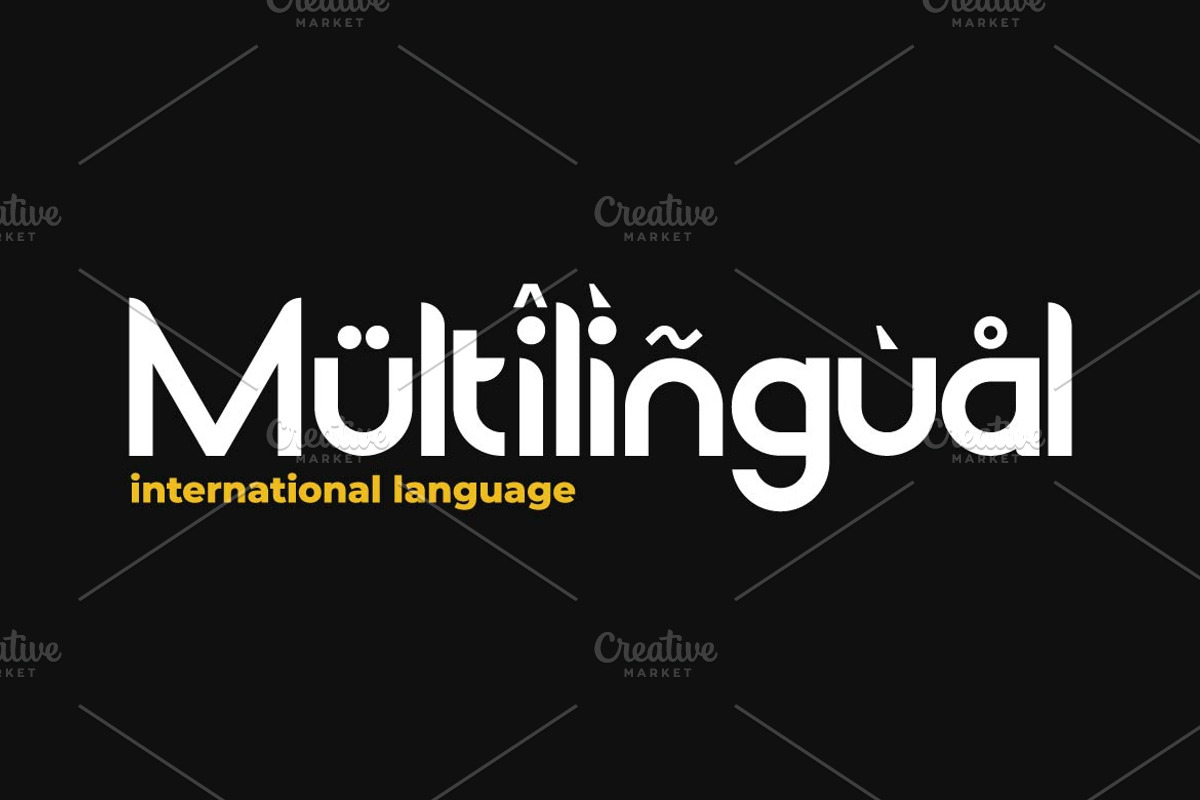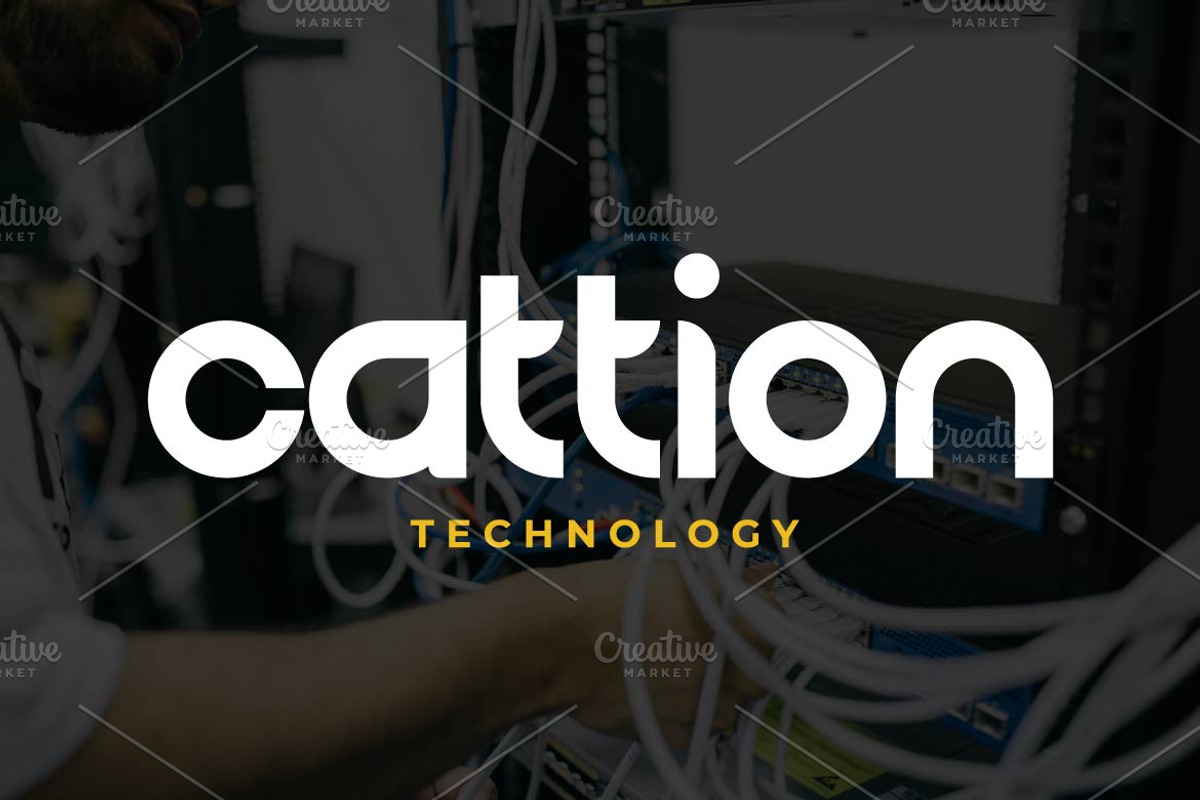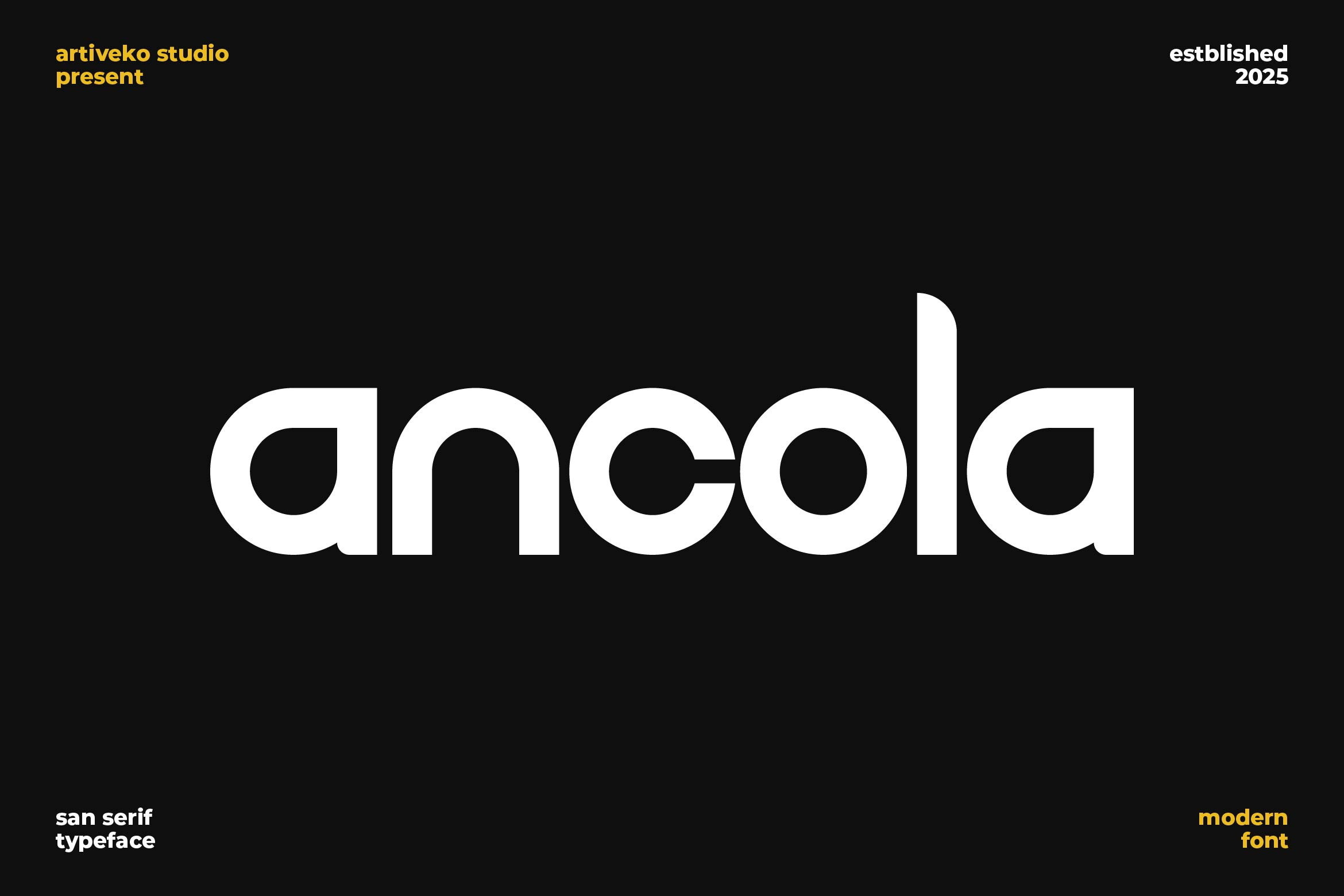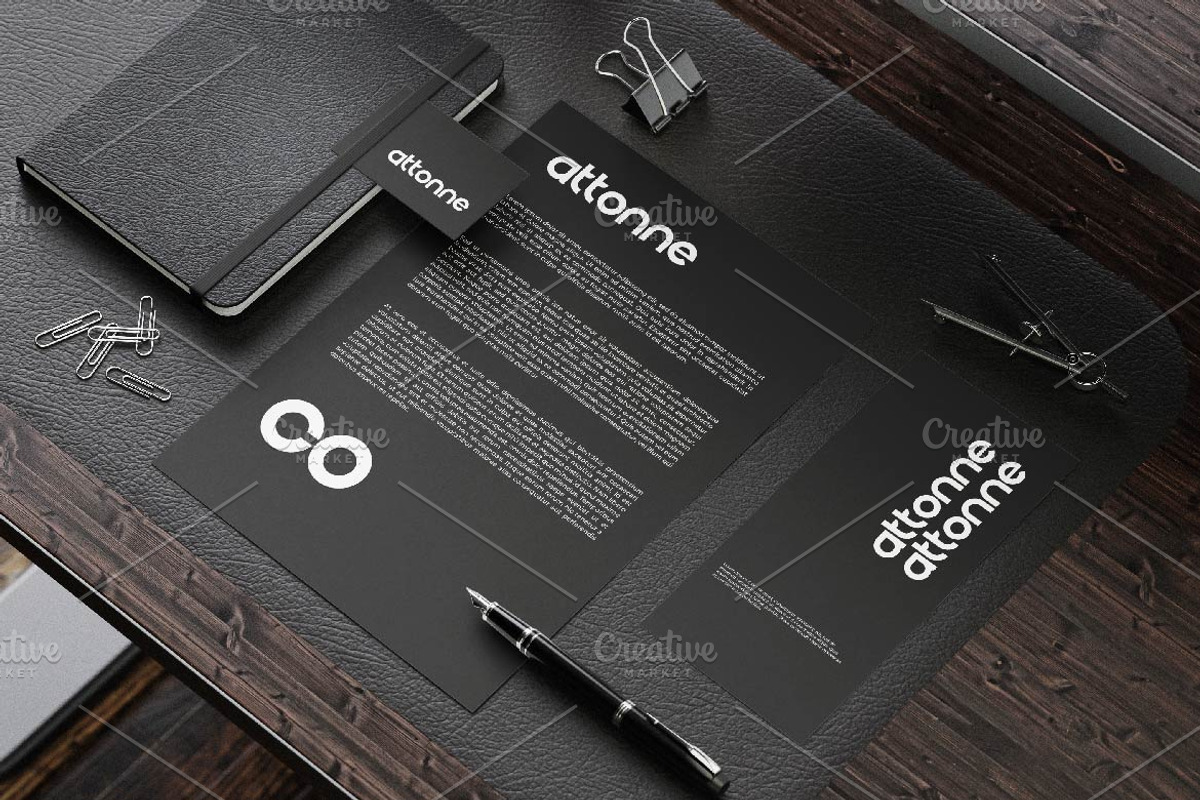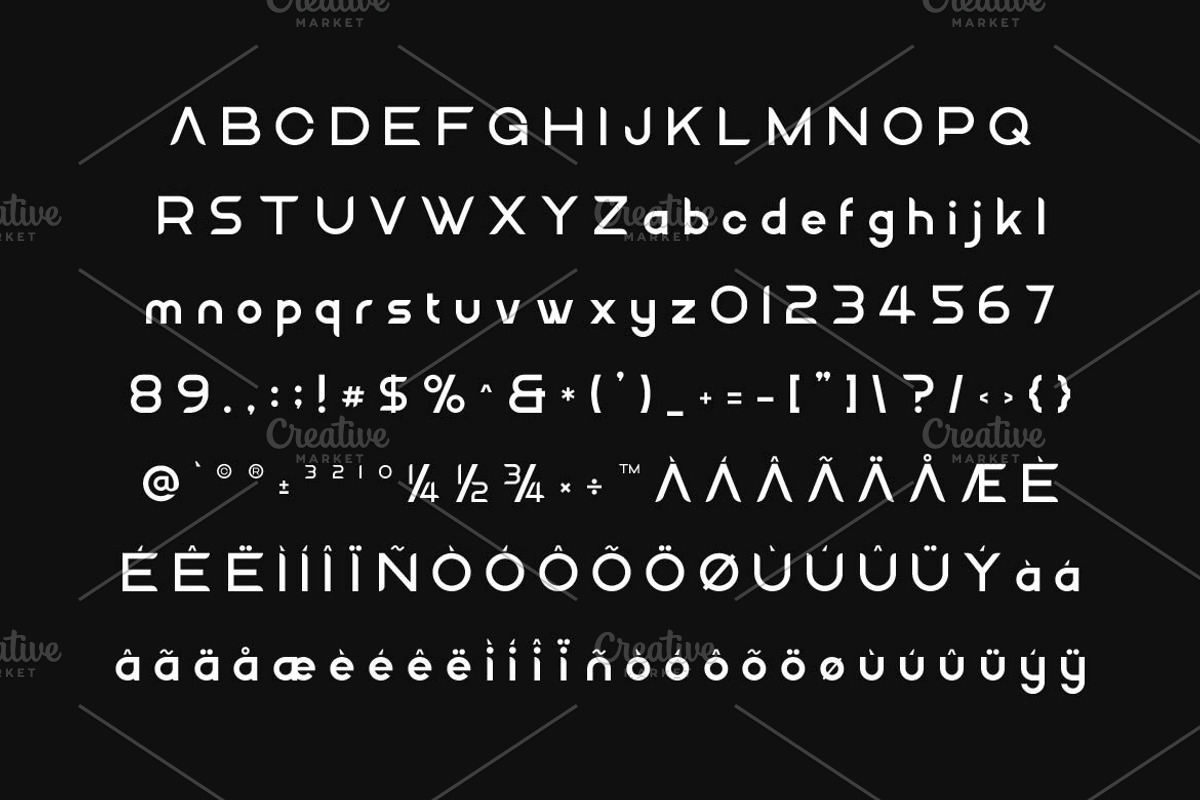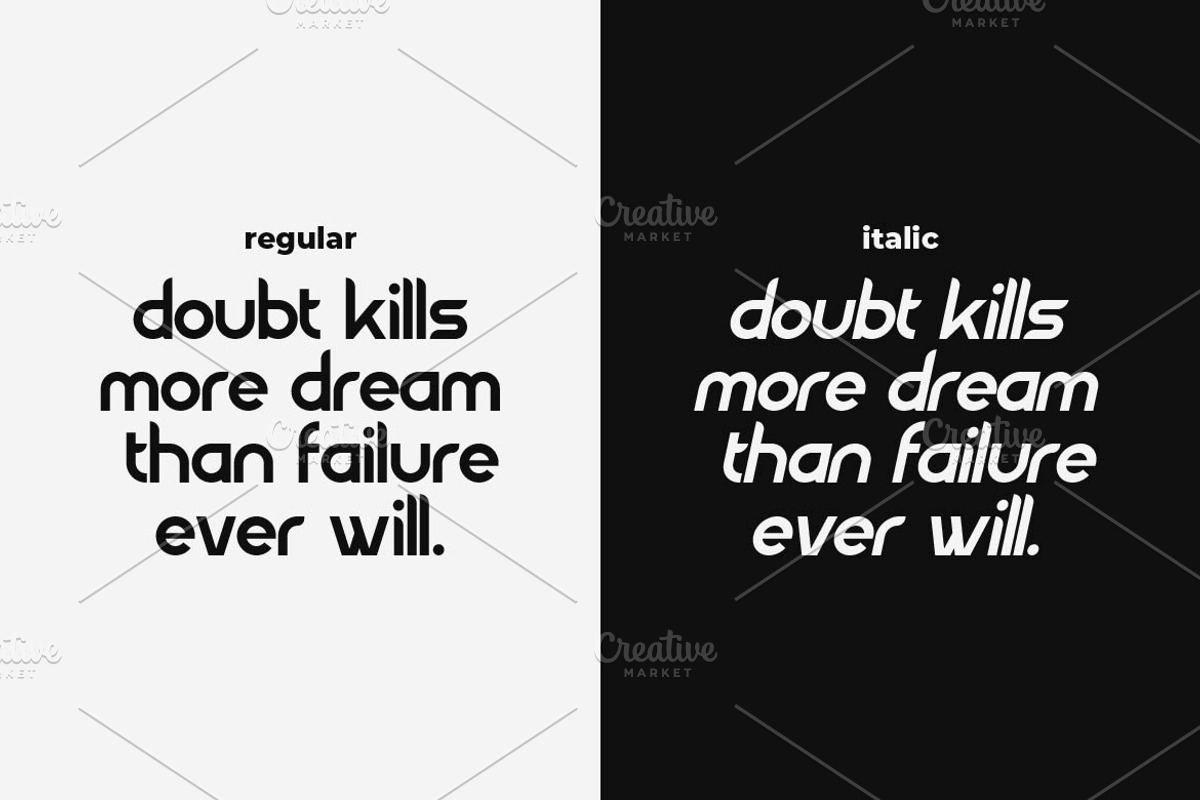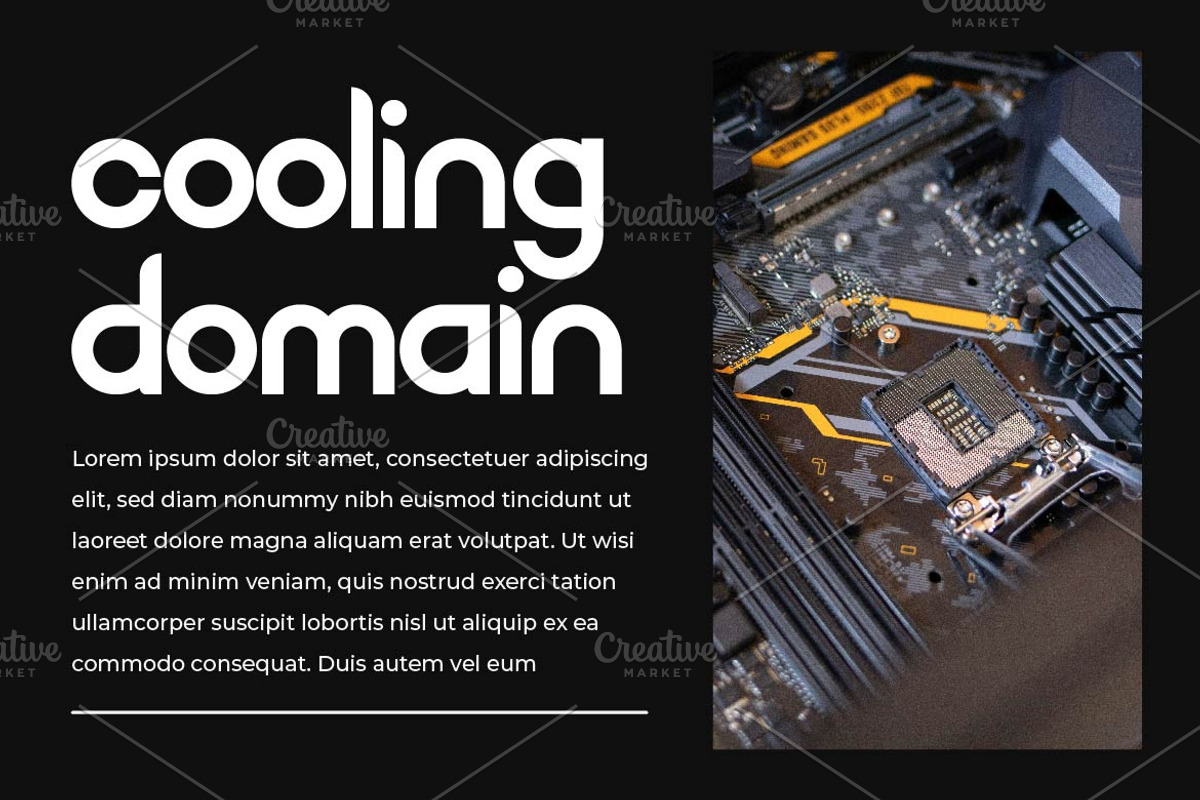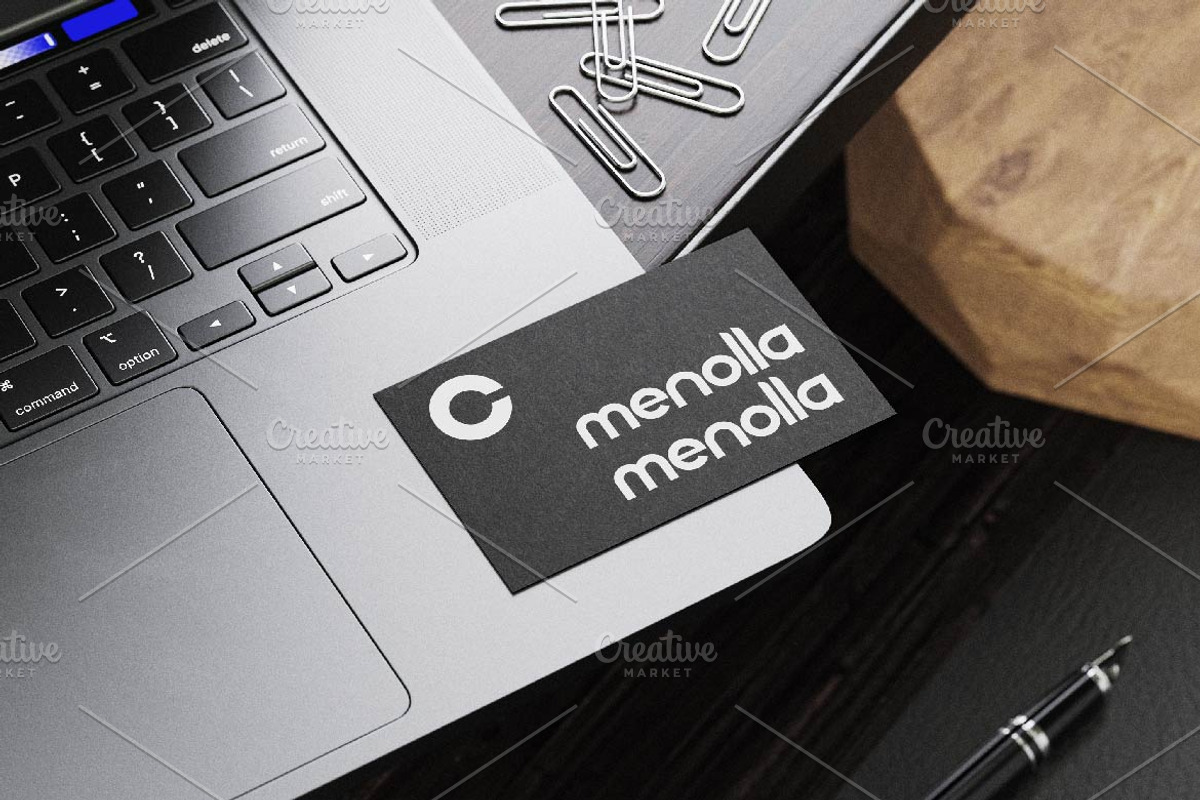
Ancola Modern Logo Font
Ancola is a modern sans serif font with clean lines and a sleek, professional feel. Designed for clarity and versatility, it fits perfectly in branding, editorial design, websites, and tech-inspired projects. With multilingual support, ligatures, and alternates, Ancola offers a balanced blend of minimalism and modernity—ideal for impactful and contemporary visual communication.